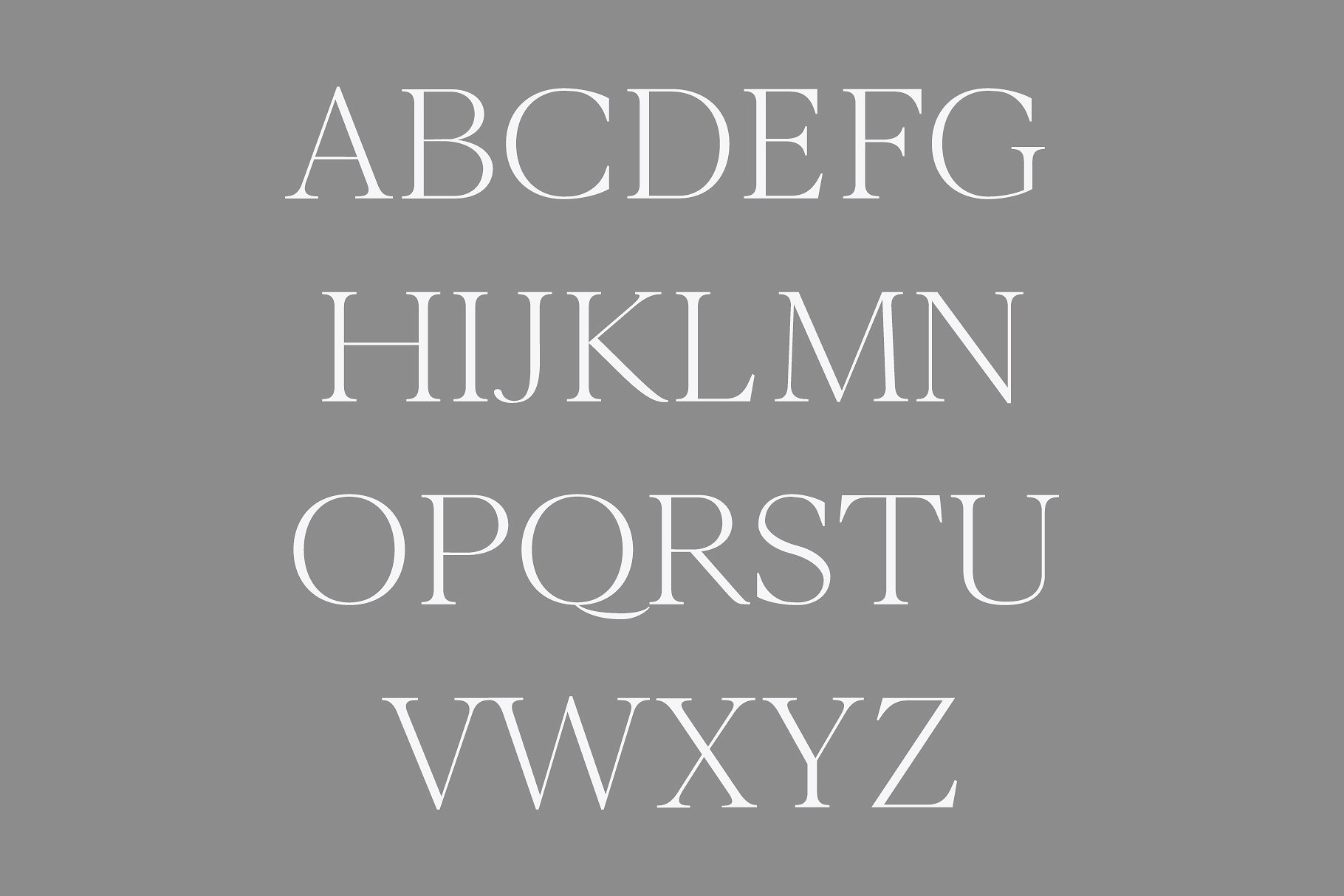
Contemporary Serif Fonts Free
Novante Stylish Display Serif Font Dafont Free
It is a contemporary typeface designed by alessio laiso as the slab serif companion to the lato font by łukasz dziedzic. Z y m m arapey eduardo tunni 2 styles. Looking for modern sans serif fonts?
Examples of modern and popular free serif fonts to download. Most people use modern serif fonts such as georgia, garamond. Modern serif à € by galdino otten.
As A Result, Modern Serif Fonts Display Well On Screens.
Aleo is the first of the free serif fonts in this article. Maldive modern serif font is available as a personal use only! Nostalgia font is a stylish and sophisticated modern serif typeface created by rsz type foundry with a retro feeling 3 fonts regular, effect and flowers.
Sage Is A Modern Serif Typeface With Lots Of Style.